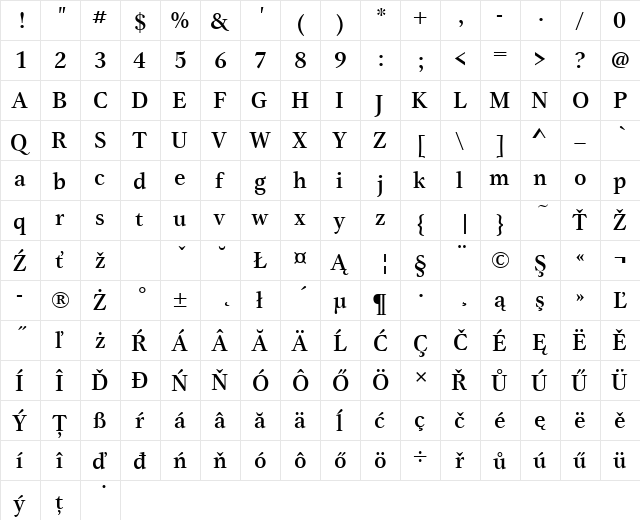
GammaItcTEEMed Regular
Design Context for GammaItcTEEMed Typeface
GammaItcTEEMed takes a measured approach to typography — its balanced proportions and neutral character make it a reliable workhorse for both digital and print work.